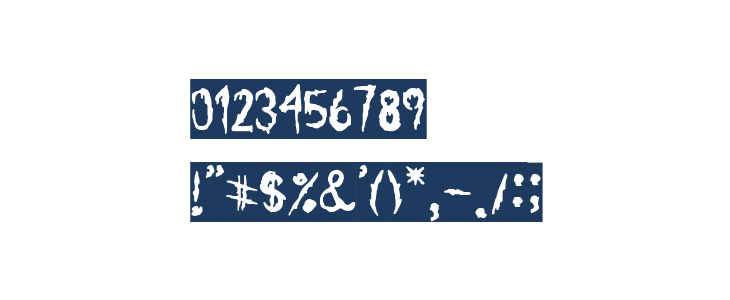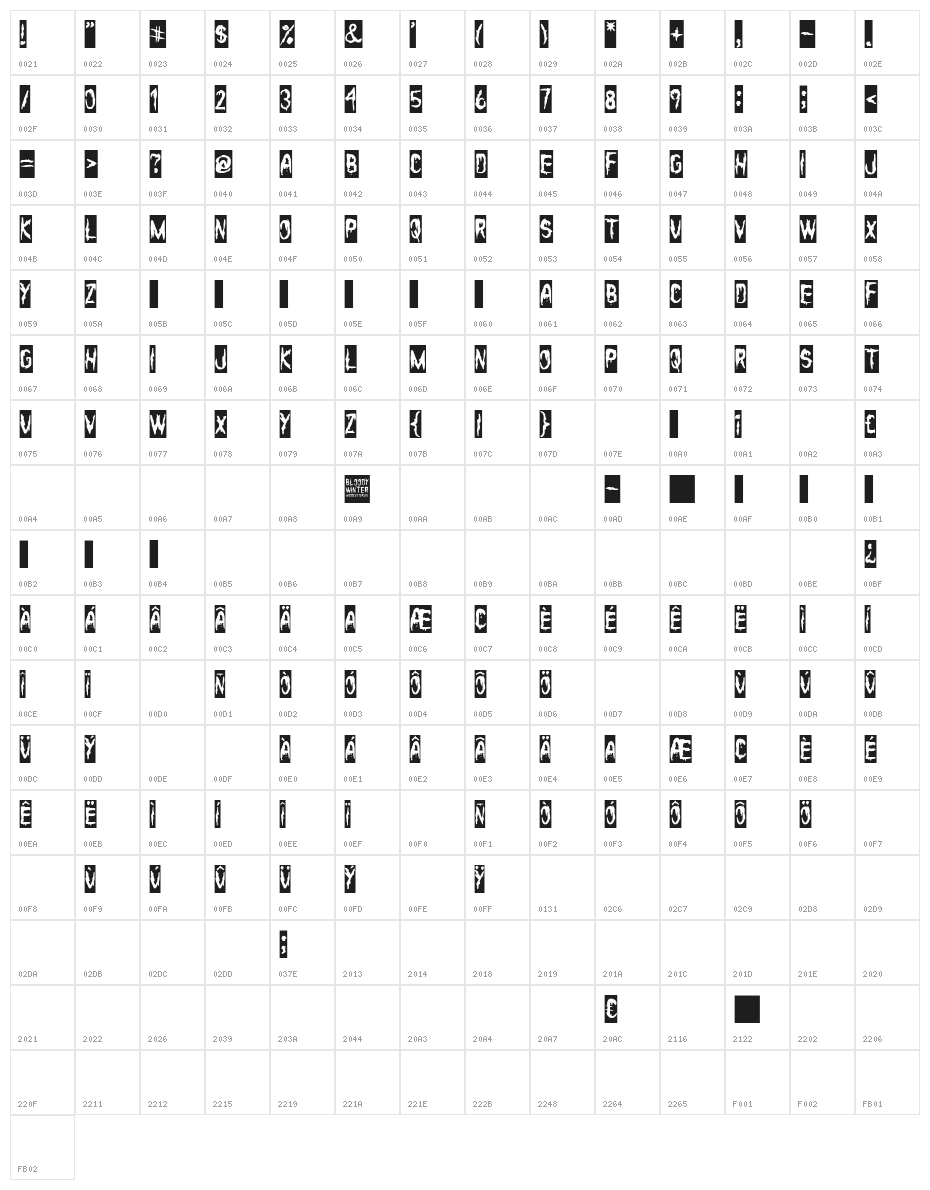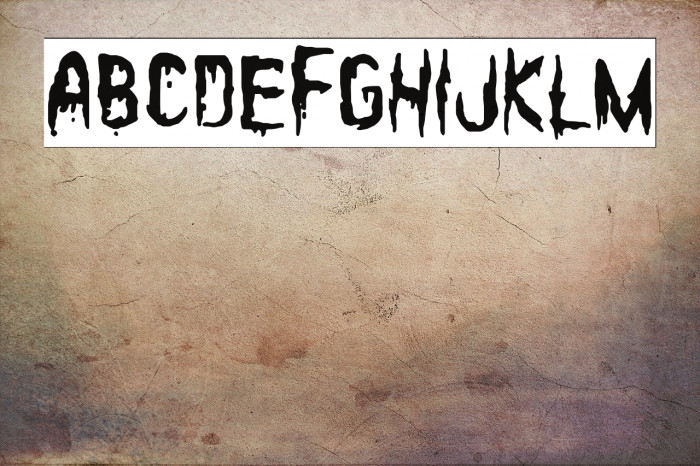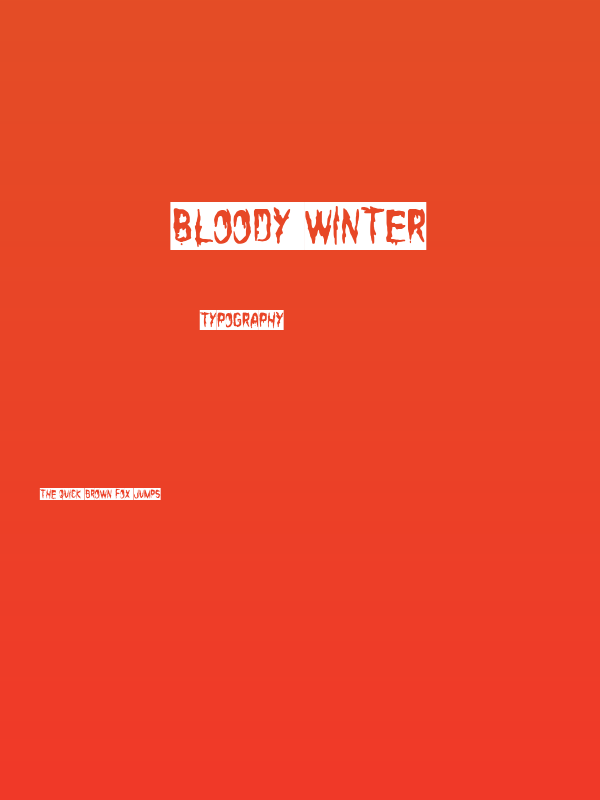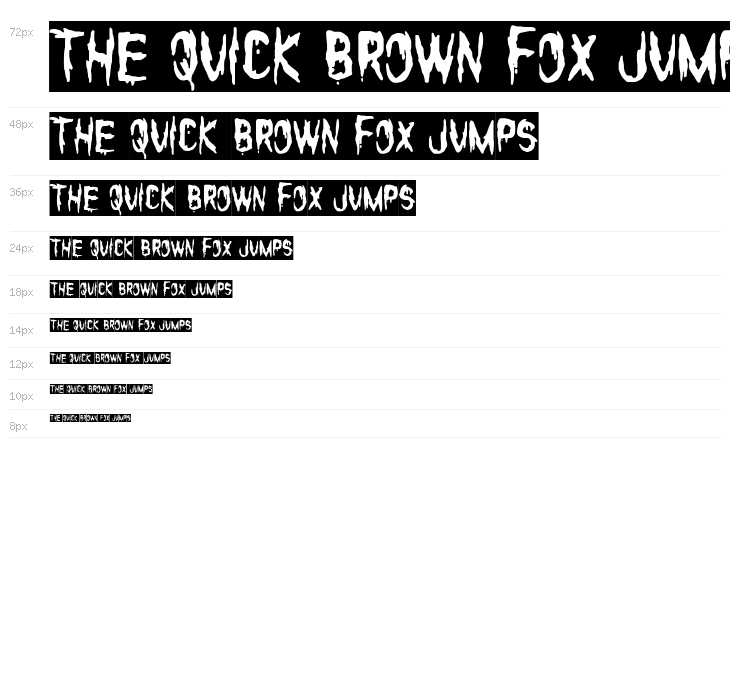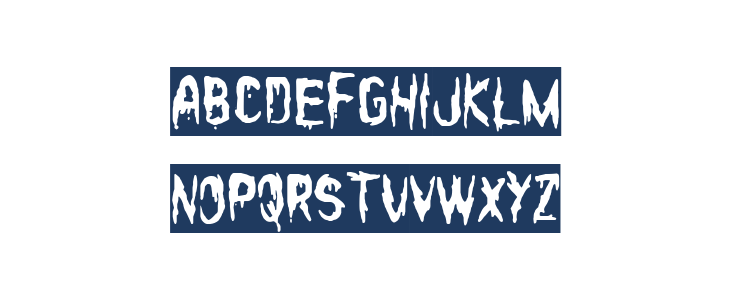
Bloody Winter Font
Bloody Winter Description
This font features a chilling, dripping effect reminiscent of melting ice or blood, making it ideal for horror or winter-themed designs. The characters are bold and irregular, with a hand-drawn appearance that adds to its eerie and dramatic style. The uppercase and lowercase letters maintain a consistent theme, with numbers and special characters following suit. The overall look is striking and memorable, perfect for capturing attention in thematic projects.
| Use Case | Headlines, Posters, Logos |
| Proposed Projects | Ideal for Halloween posters, horror movie titles, winter-themed events, or any project requiring a dramatic and eerie typeface. |